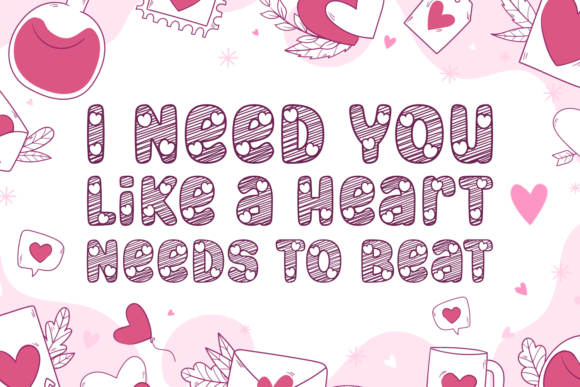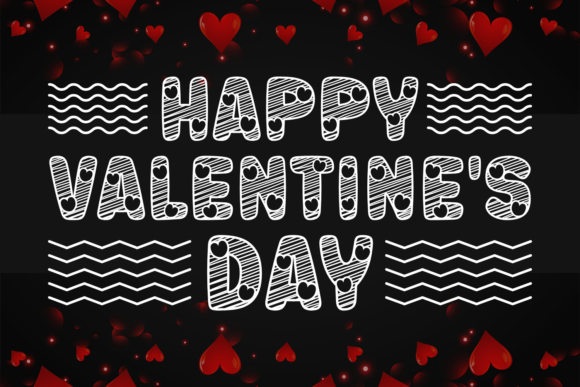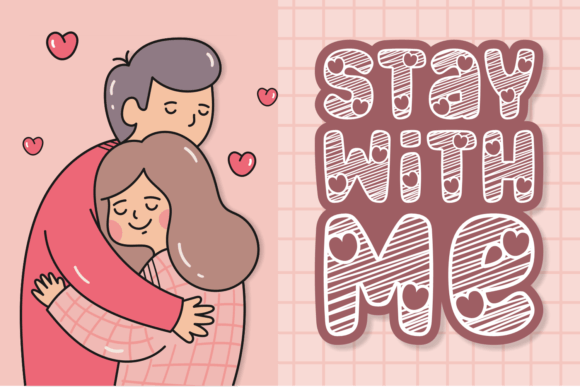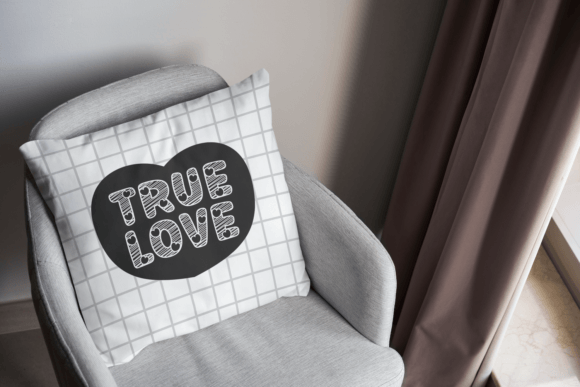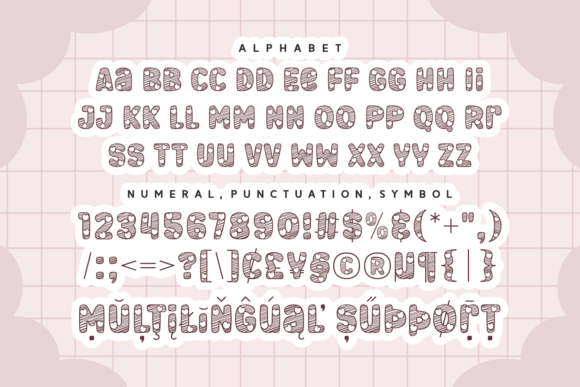
Introduction to Paint Love Font
Paint Love is a whimsical and decorative font that adds a touch of love to your designs.
Each letter is adorned with a charming heart, infusing your text with warmth and playfulness Ideal for expressing affection in your projects, this font brings a delightful and creative flair to any piece.
Key Features of Paint Love Font